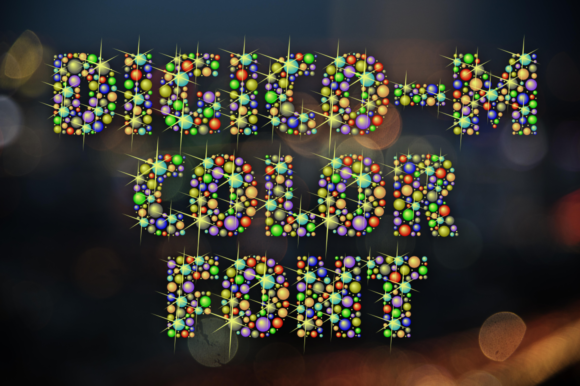
In a world clamoring for distinctiveness, where design aesthetics reign supreme, Digico-M emerges as a color font brimming with charm and vibrancy. Its palette exudes an infectious joy, radiating like a kaleidoscope of emotions. Each letter dances across the screen, imbued with a personality that resonates with warmth and playfulness.
Unleash your creativity with Digico-M, a font that breathes life into your digital dreams. Its carefully crafted curves and vibrant hues transform ordinary text into captivating expressions. Let your designs blossom with personality, whether you're crafting whimsical invitations, vibrant social media posts, or eye-catching logos.
With Digico-M, every word carries a story. Its colors captivate, its forms intrigue, and its overall aesthetic invites engagement. Create designs that echo the laughter of children, the warmth of a summer's day, or the magic of a starry night. Let your imagination soar as you discover the endless possibilities that await you.
Dare to be different, to embrace the extraordinary. Embark on a creative journey with Digico-M, where colors dance and letters come alive. Let your designs reflect your individuality, your passions, and your unique perspective.